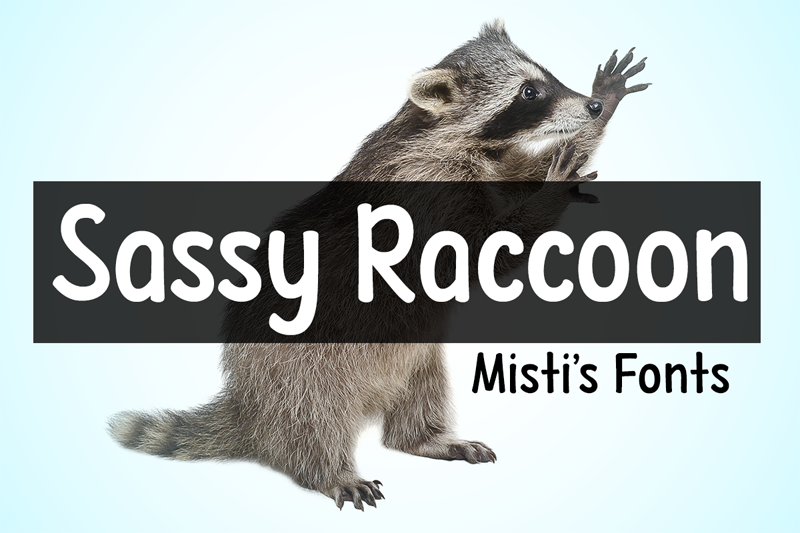
Font name: | Sassy Raccoon |
Introducing Sassy Raccoon, a playful and adorable display typeface that brings a touch of whimsy and charm to any project. This font features rounded edges and soft shapes, making it perfect for a wide range of applications, from children�s books to branding, packaging, and social media graphics. Terms Of Use and Commercial Licensing: https://mistifonts.com/sassy-raccoon/ |